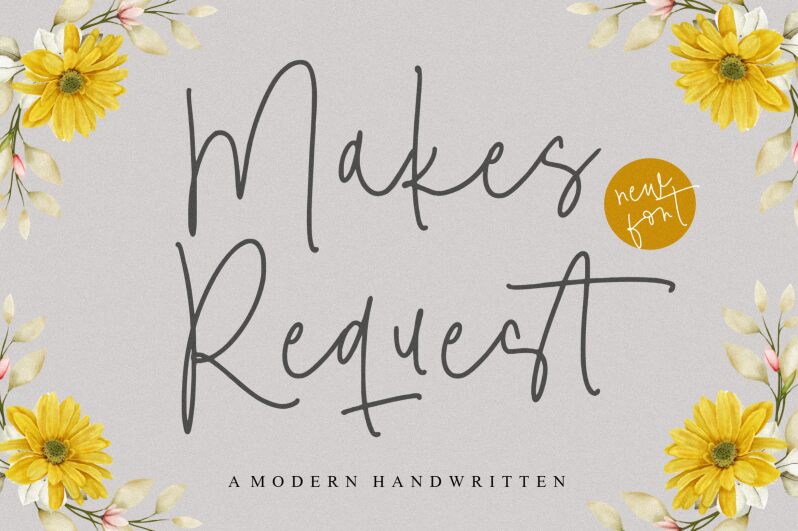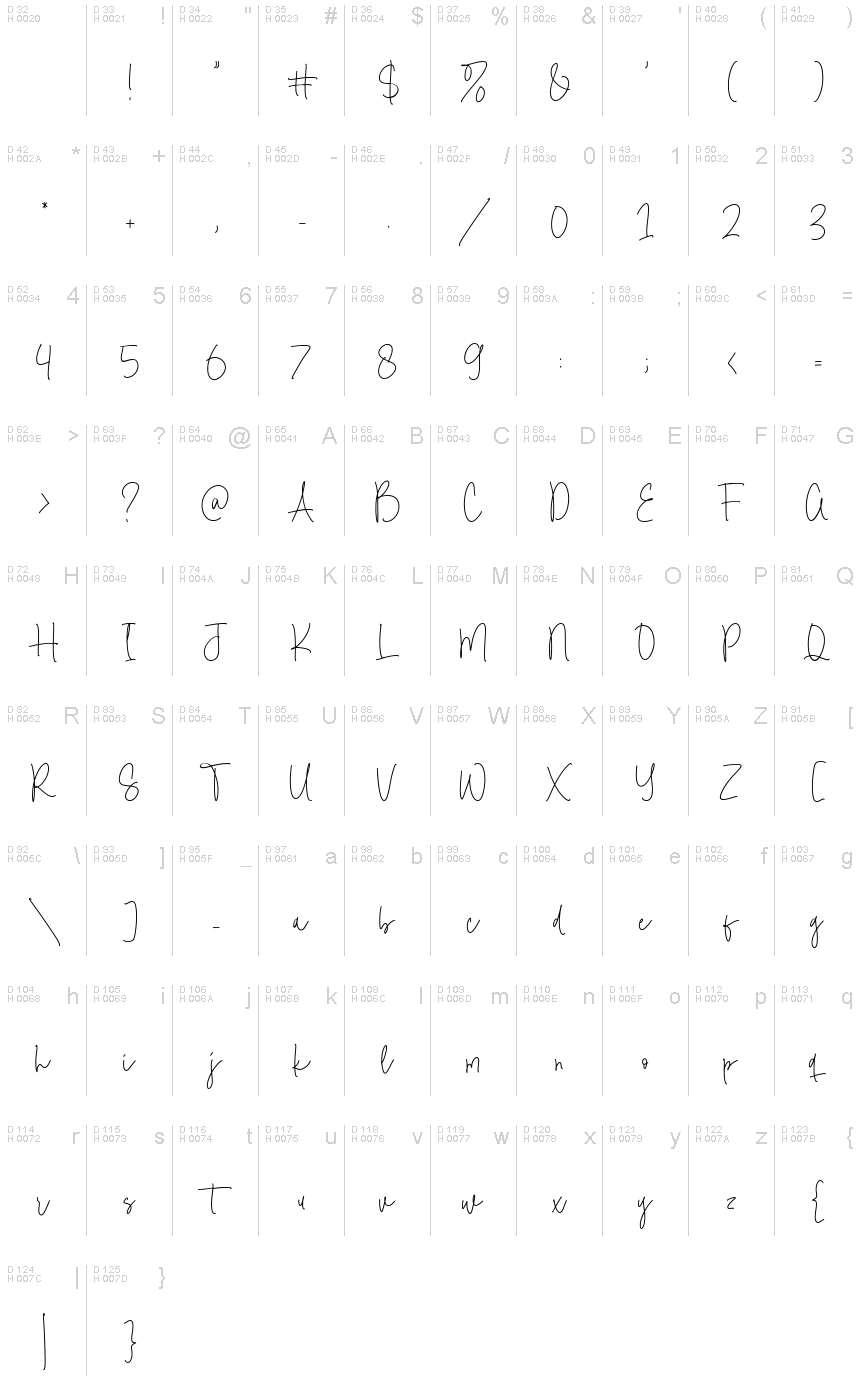
Makes Request
Makes Request font, designed by Balpirick Studio, beautifully captures the essence of handwritten elegance. Its light strokes offer a delicate touch, reminiscent of personal notes or charming invitations. The fluidity in its characters adds a warm and inviting feel, making it perfect for designs that seek to evoke intimacy and creativity.
Visually, Makes Request stands out with its airy and expressive curves, allowing for a personalized aesthetic that resonates deeply. Ideal for branding projects, wedding stationery, or artful headings, this font invites users to connect on an emotional level while maintaining a sophisticated flair. Embrace Makes Request in your next design venture to add a unique blend of charm and sophistication.